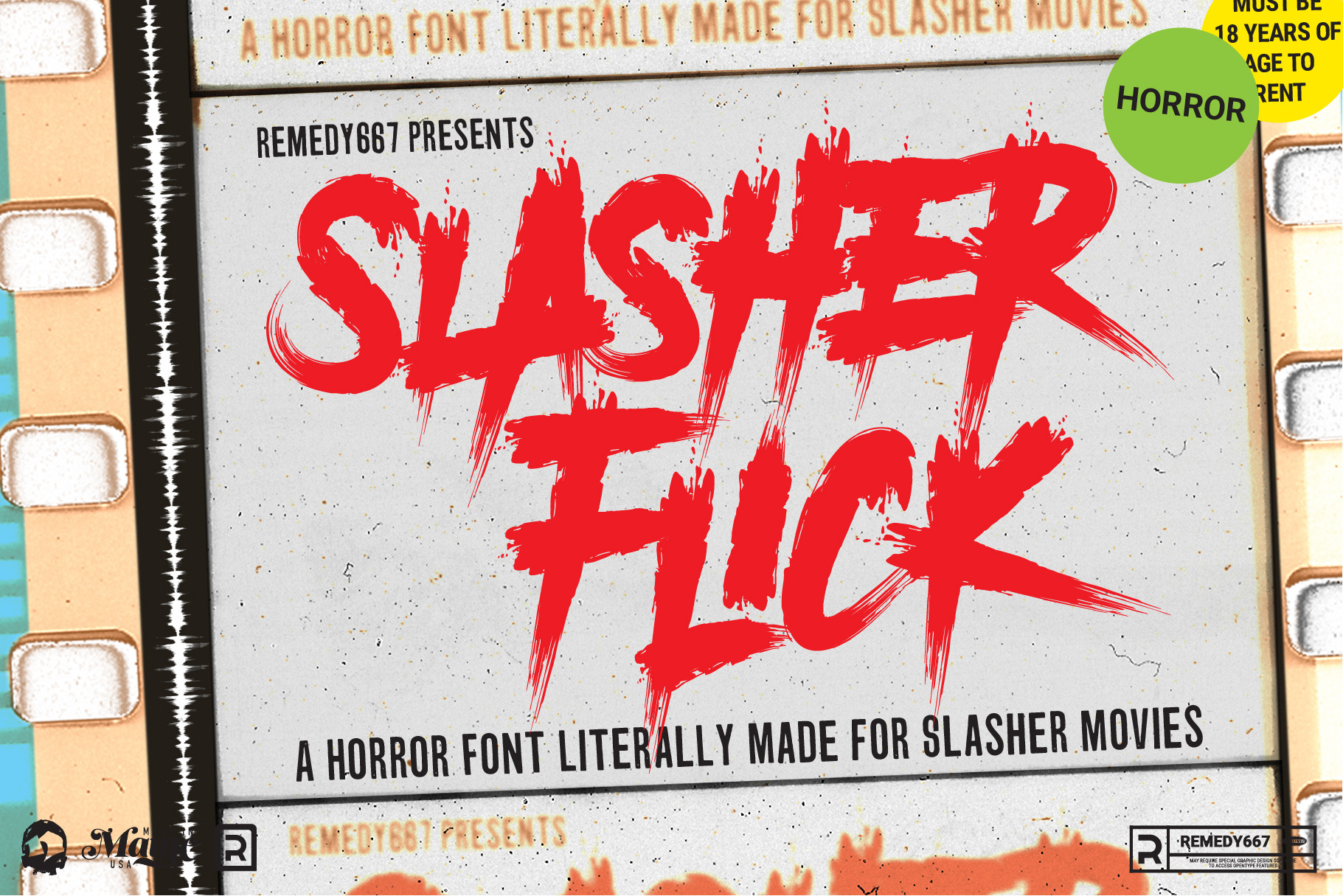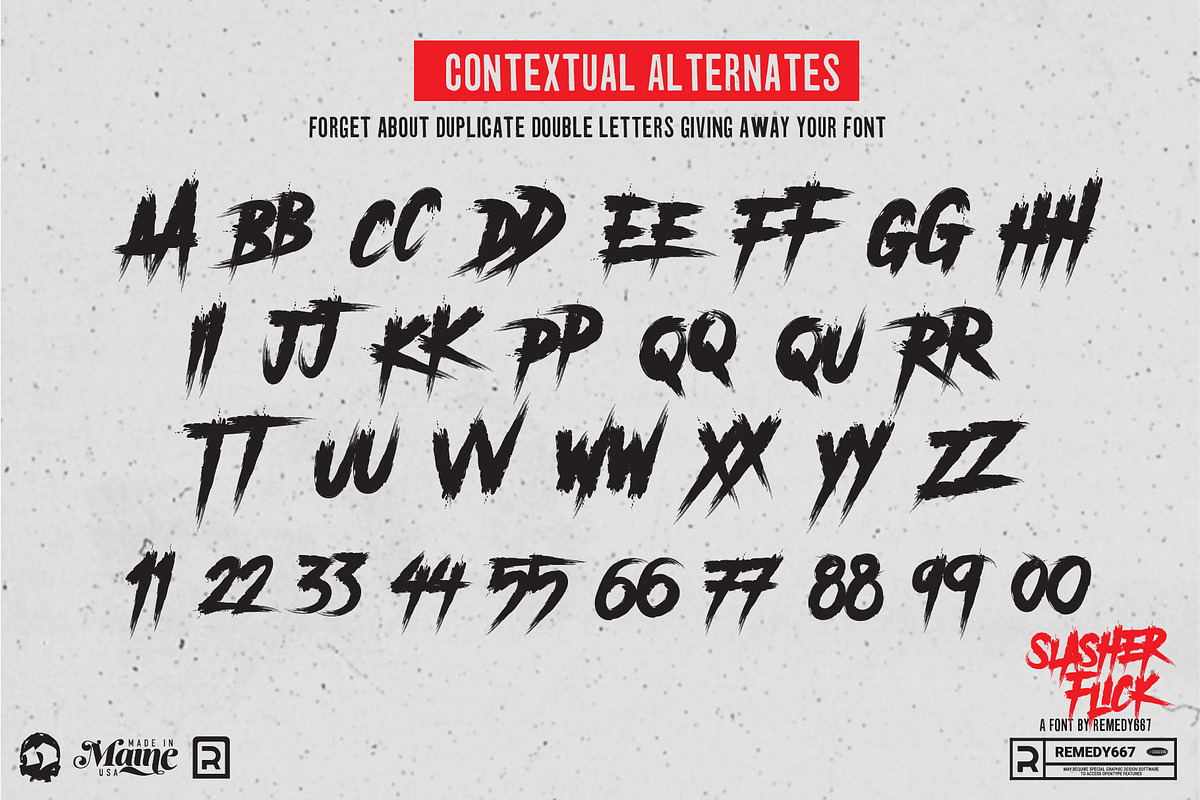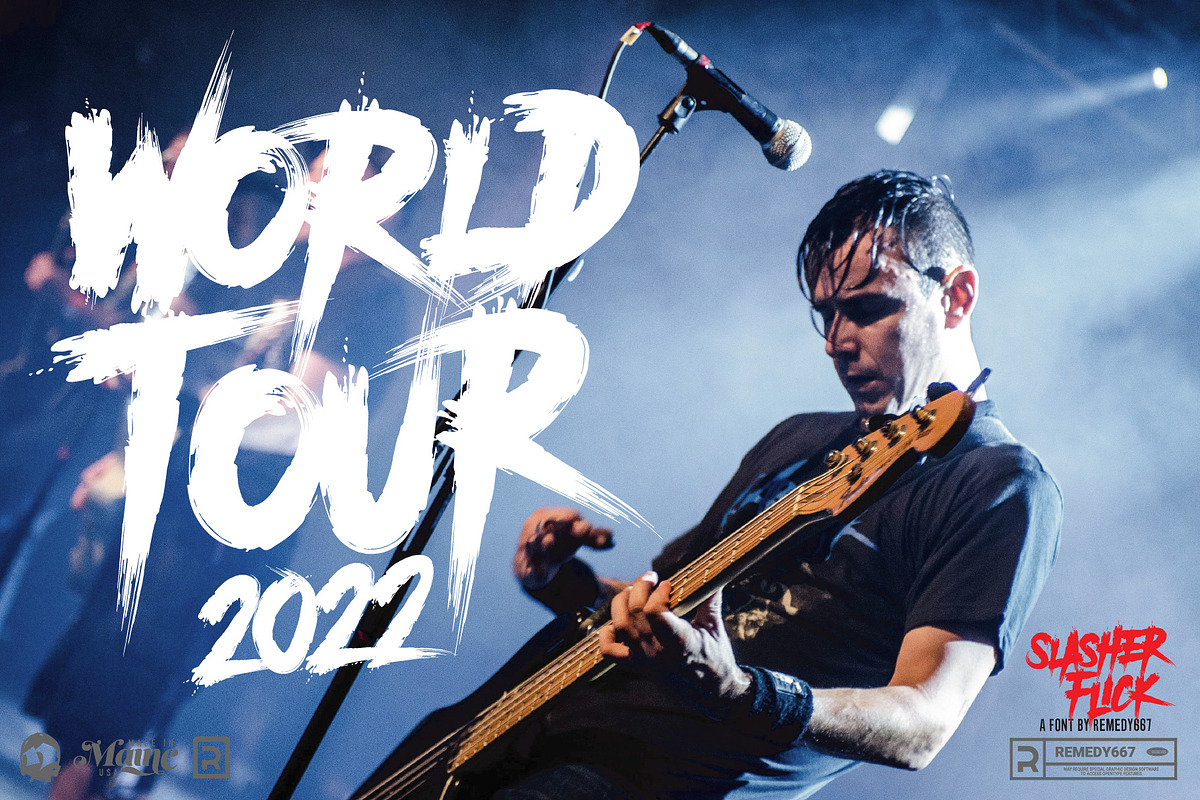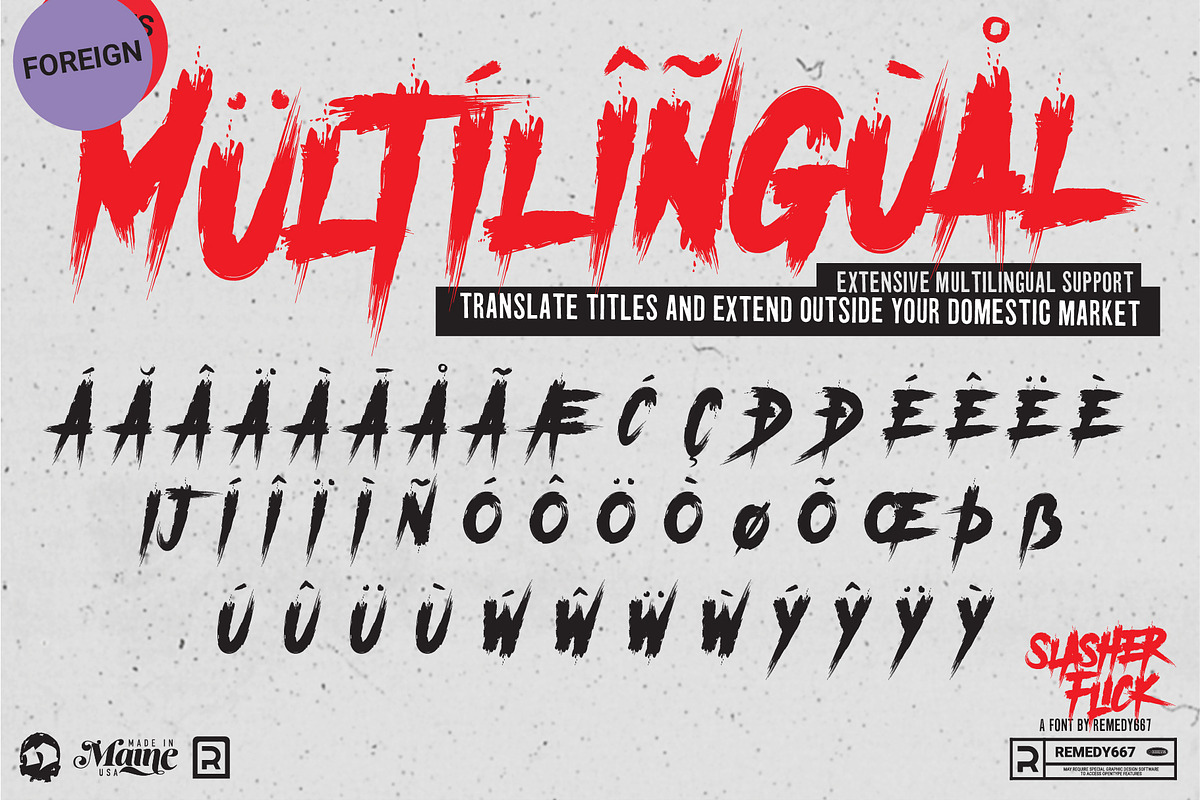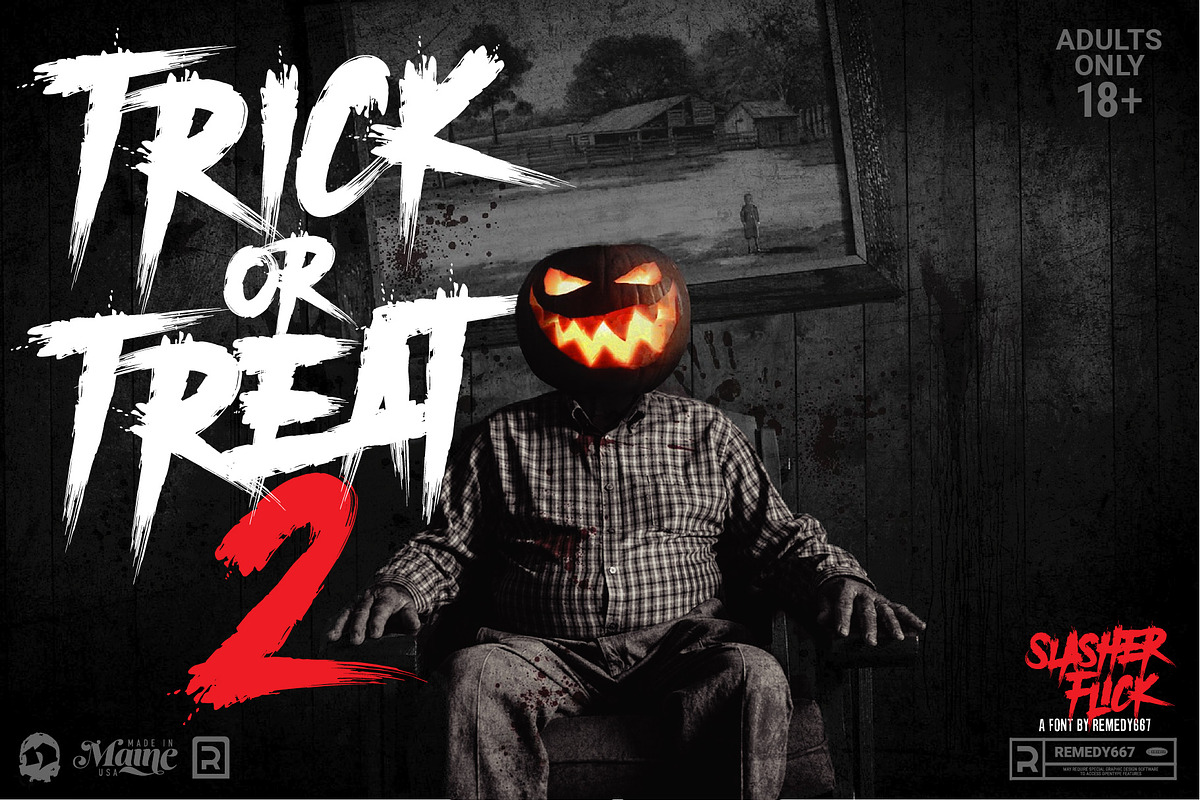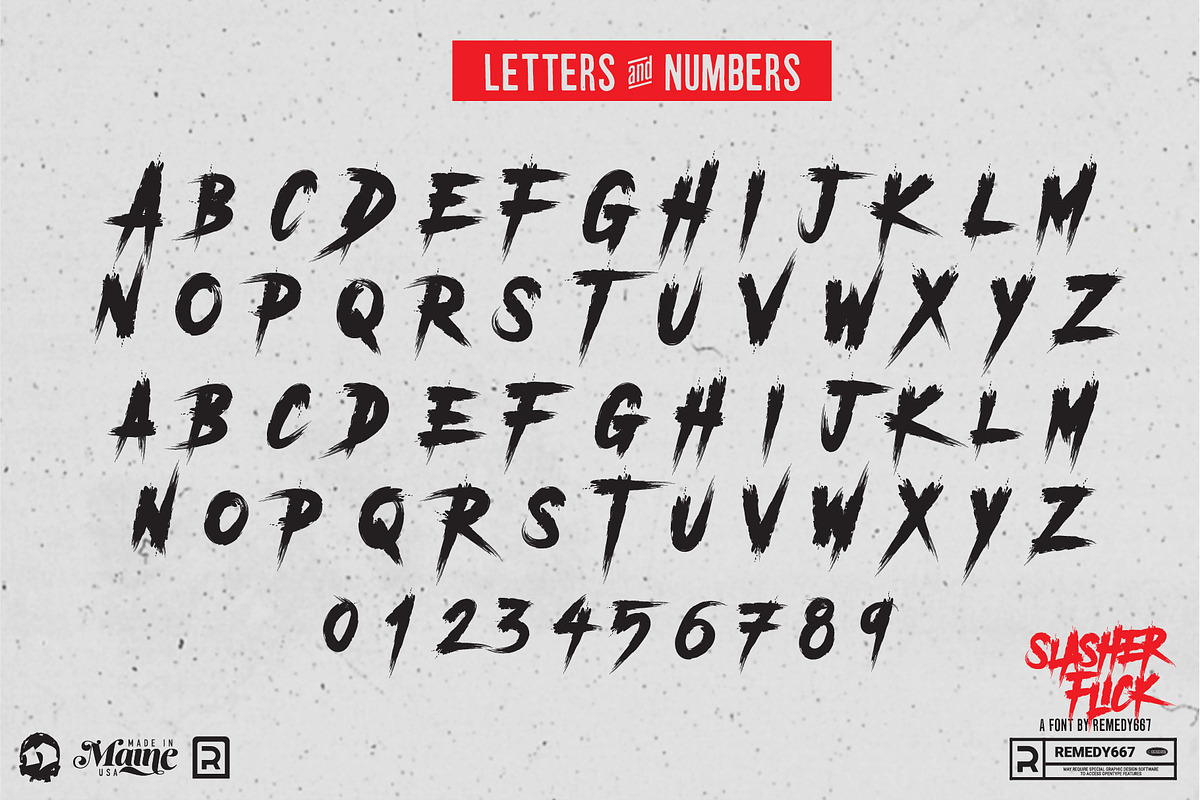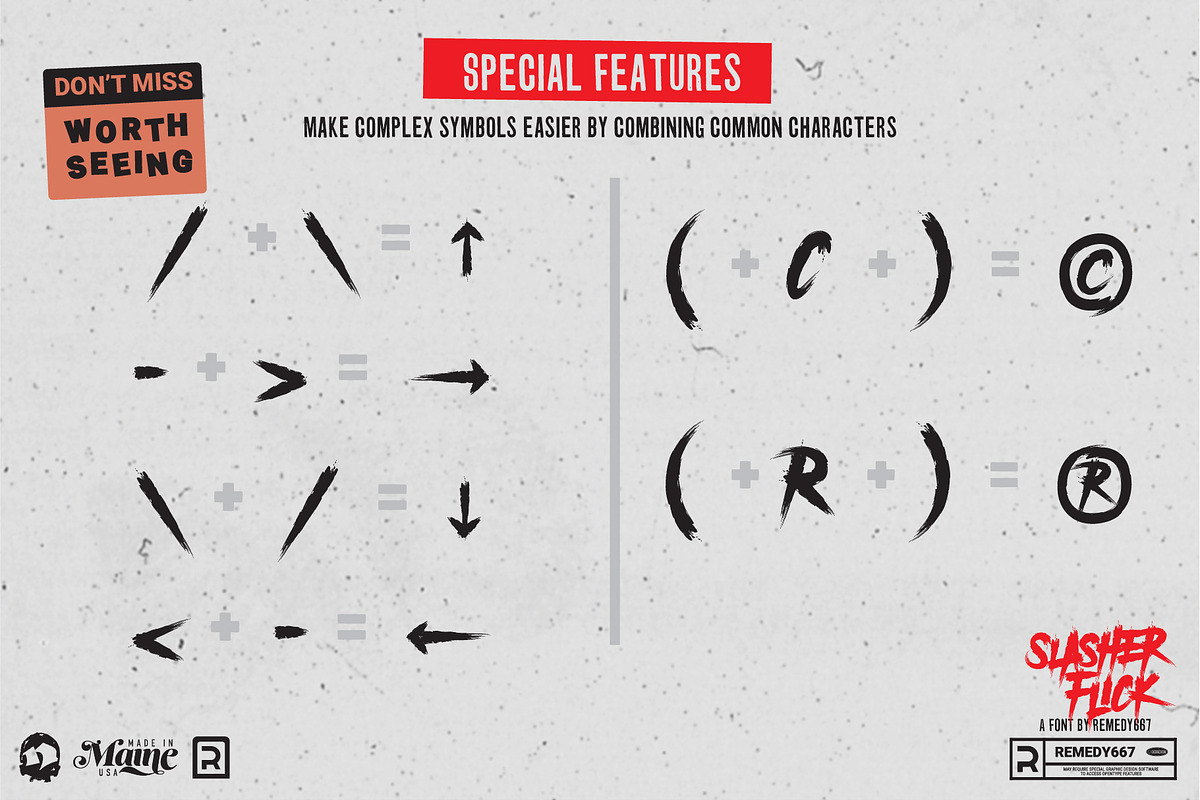
Slasher Flick - Horror Font
The typeface you count on for terror, is Slasher Flick. A horror font literally made for slasher movies.
Influenced by 80’s massacre movies, Slasher Flick brings the bloodshed. Up your body count in any film titles, book covers, gigposters, skateboards, packaging… virtually anything. Slasher Flick kills it.